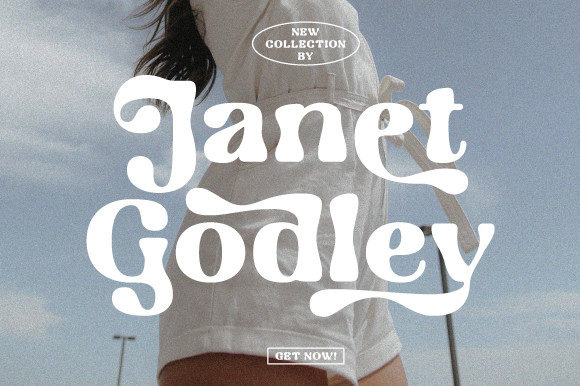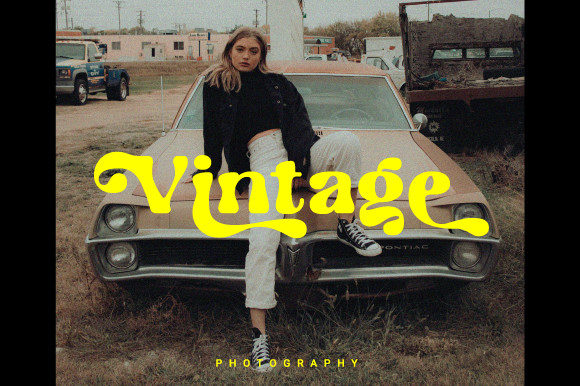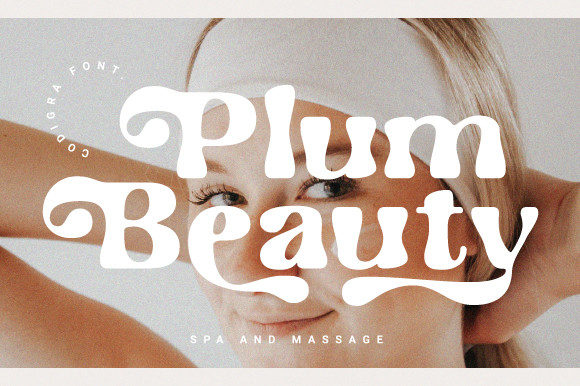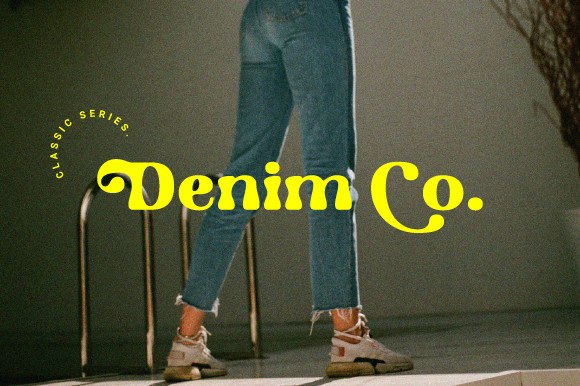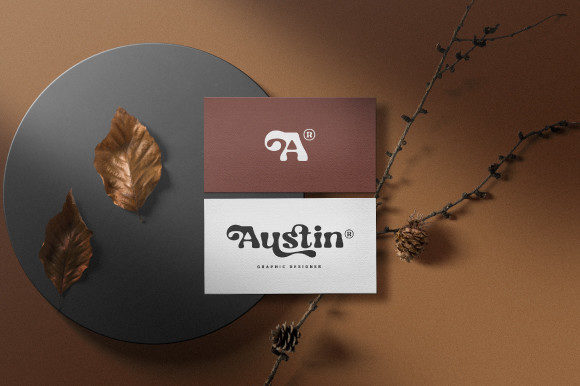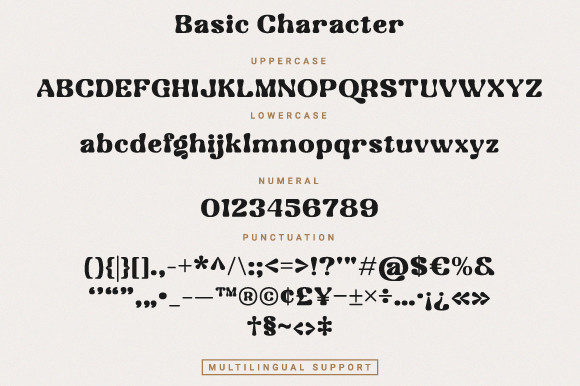
Codigra Font: Elevate Your Designs with a Bold, Wavy, and Retro Style
In the world of typography, fonts play a crucial role in making or breaking a design. A well-chosen font can instantly elevate your project, adding a touch of personality and flair. If you’re on the hunt for a bold, eye-catching font that’s perfect for logos, branding, and visual design, look no further than Codigra. This stunning display font boasts a unique wavy and retro style that’s sure to turn heads.
What Makes Codigra Special?
Codigra is more than just a font – it’s a design statement. Its bold, wavy lines and retro aesthetic make it perfect for designers and crafters looking to add a touch of nostalgia and sophistication to their work. With its unique shape and attractive alternative characters, Codigra is ideal for a wide range of design applications, from logos and branding to packaging and advertising.
Key Features of Codigra Font
- Bold Display Font: Codigra is a bold display font designed to make a statement. Its thick lines and wavy shape ensure that your text will stand out from the crowd.
- Wavy and Retro Style: The font’s wavy and retro aesthetic adds a touch of nostalgia and playfulness to your designs.
- Unique Shape and Alternative Characters: Codigra’s unique shape and attractive alternative characters allow you to add a personal touch to your designs.
- PUA Encoded: Codigra is PUA (Private Use Area) encoded, which means you can access all glyphs and swashes with ease. This makes it simple to customize your text and add special touches to your designs.
Codigra is a versatile font that’s perfect for a wide range of design applications. Whether you’re a professional designer or a crafter looking to add a personal touch to your projects, Codigra is an excellent choice. Here are just a few ways you can use Codigra:
- Logo Design: Create a bold and eye-catching logo that makes a statement with Codigra.
- Branding and Visual Identity: Use Codigra to add a touch of personality to your brand’s visual identity, from business cards to packaging.
- Advertising and Marketing: Make your advertising and marketing materials stand out with Codigra’s bold and wavy style.
- Crafting and DIY Projects: Add a personal touch to your crafting and DIY projects, from scrapbooking to handmade cards.
Tips for Using Codigra Effectively
To get the most out of Codigra, here are a few tips to keep in mind:
- Use it as a Display Font: Codigra is designed to be used as a display font, so use it to add emphasis and create visual interest.
- Experiment with Colors and Textures: Don’t be afraid to experiment with different colors and textures to add depth and interest to your designs.
- Pair it with Other Fonts: Codigra pairs well with a wide range of fonts, so don’t be afraid to experiment with different combinations.
Codigra is a bold, wavy, and retro-style font that’s perfect for designers and crafters looking to add a touch of personality to their projects. With its unique shape, attractive alternative characters, and PUA encoding, Codigra is an excellent choice for a wide range of design applications. Whether you’re creating logos, branding materials, or crafting and DIY projects, Codigra is sure to elevate your designs and make them stand out from the crowd.